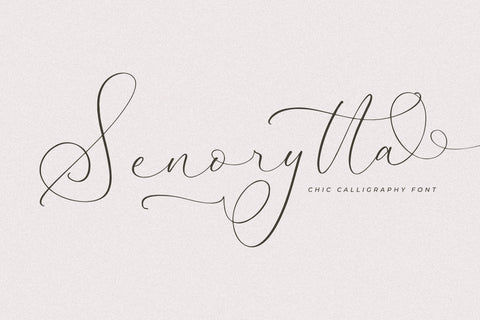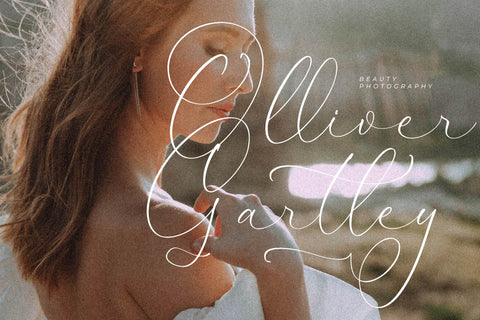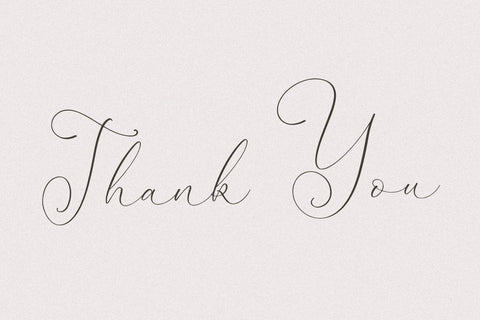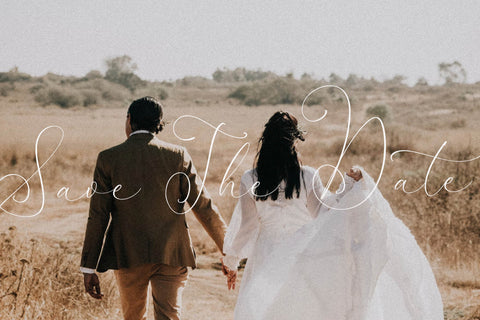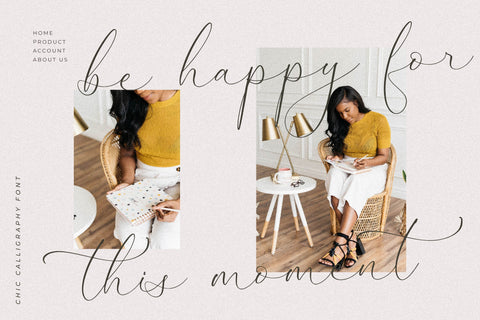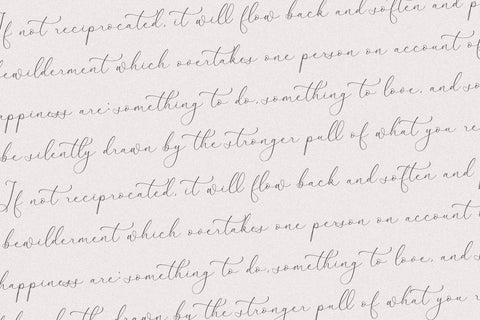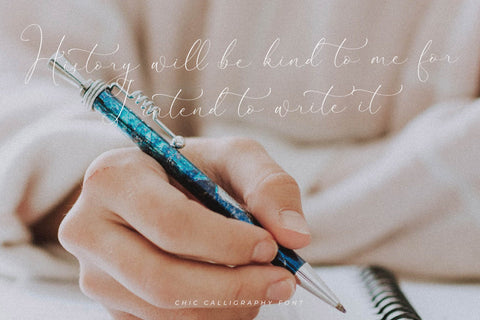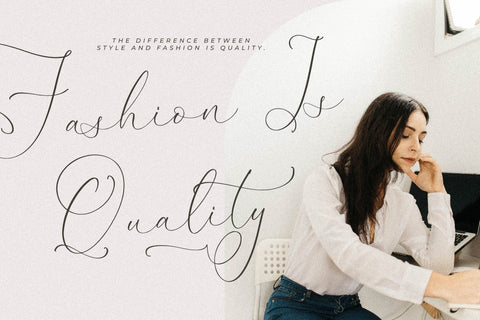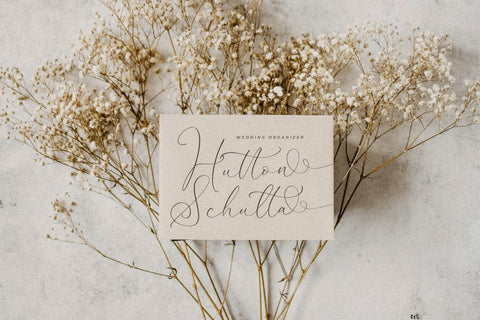
Senorytta Chic Calligraphy Font
Proudly present Senorytta Chic Calligraphy Font , created by Storytype,
A luxury script that has own unique style & modern look.